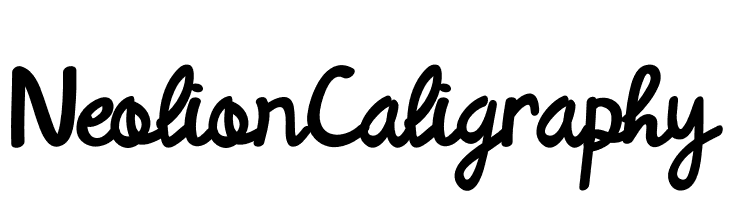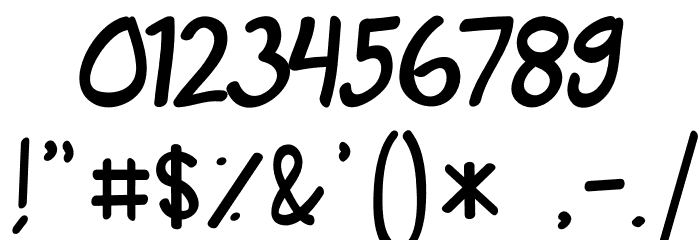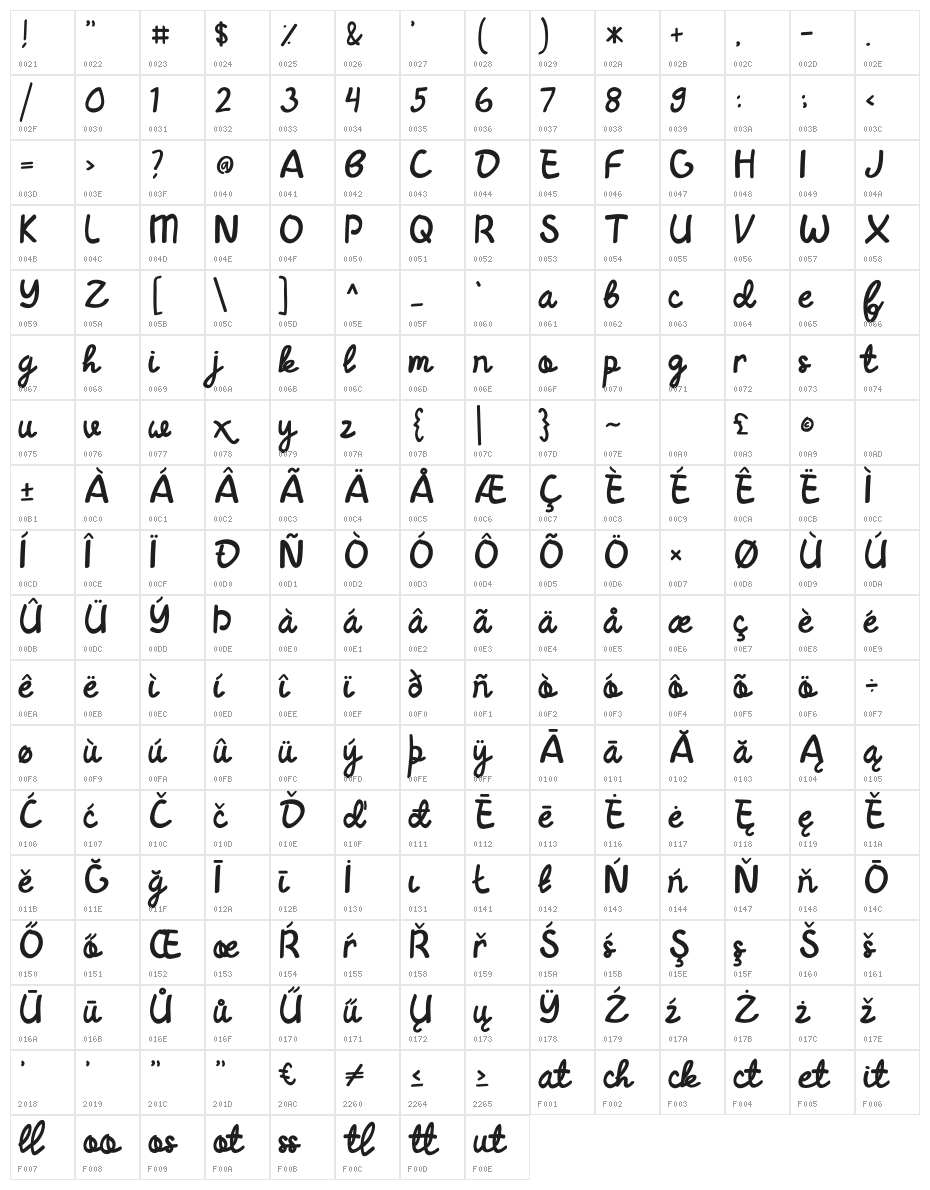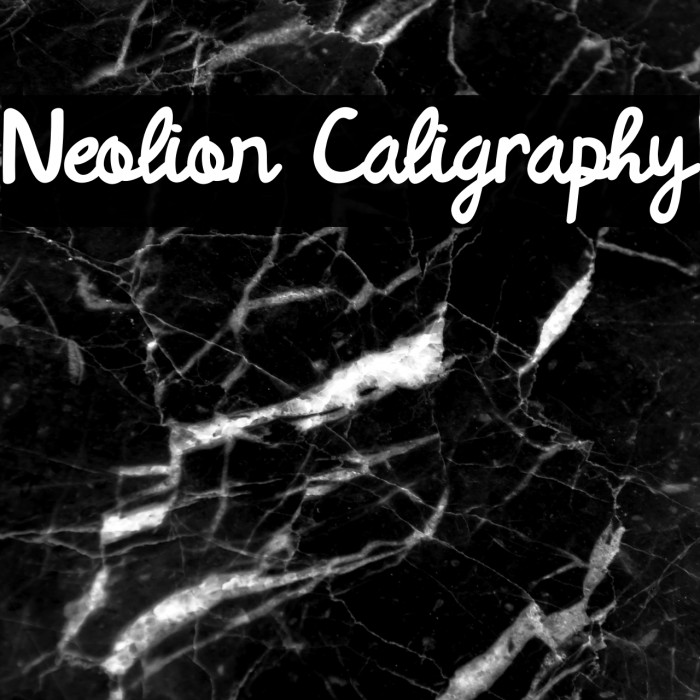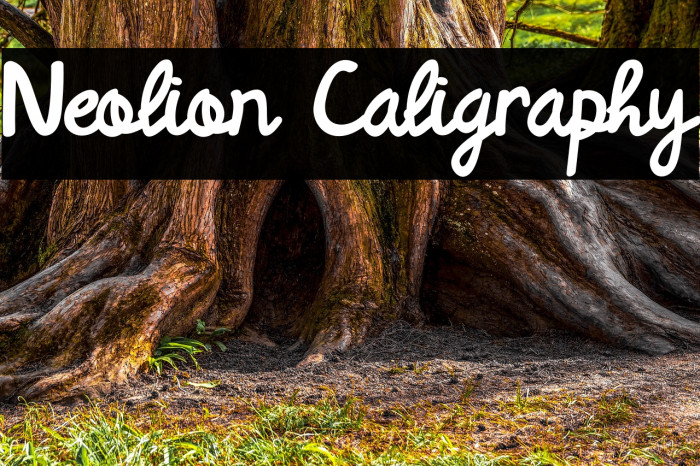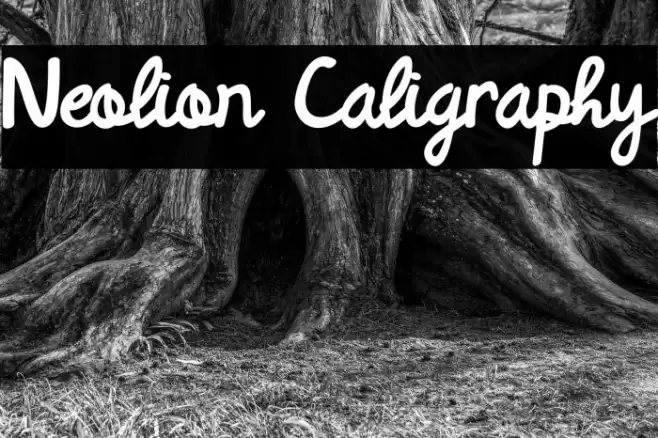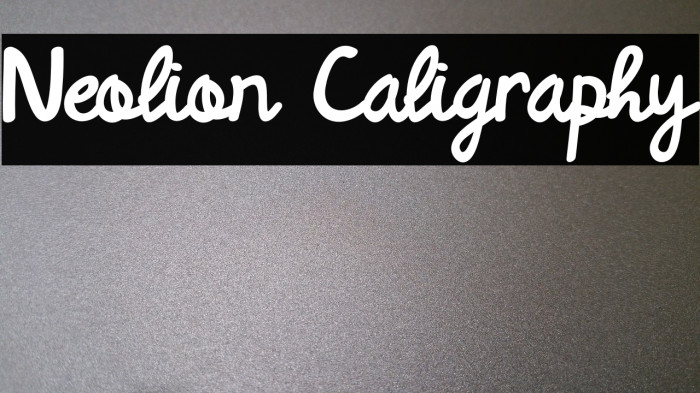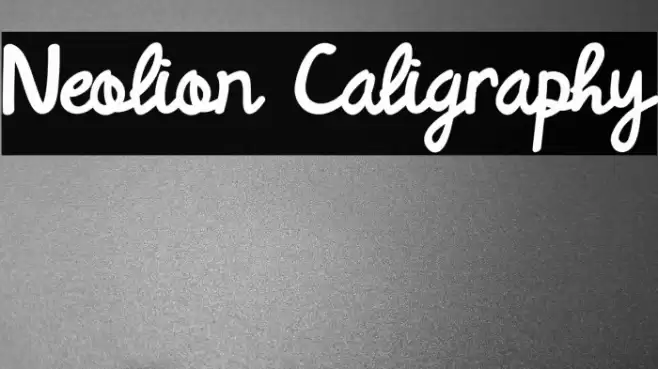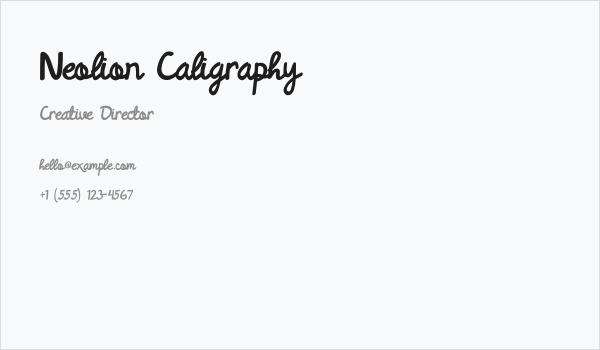
Neolion Caligraphy Font
Neolion Caligraphy Description
This font features a playful and flowing script style, characterized by its smooth, rounded edges and consistent stroke width. The uppercase letters are bold and slightly condensed, while the lowercase letters exhibit a more cursive and connected form, giving it a handwritten appearance. The numerals and special characters maintain the same playful and informal style, making it versatile for creative projects. The overall look is casual yet elegant, suitable for designs that require a personal touch.
| Overall Style | Casual, Elegant |
| Proposed Projects | Ideal for greeting cards, invitations, personal branding, and creative social media graphics. |